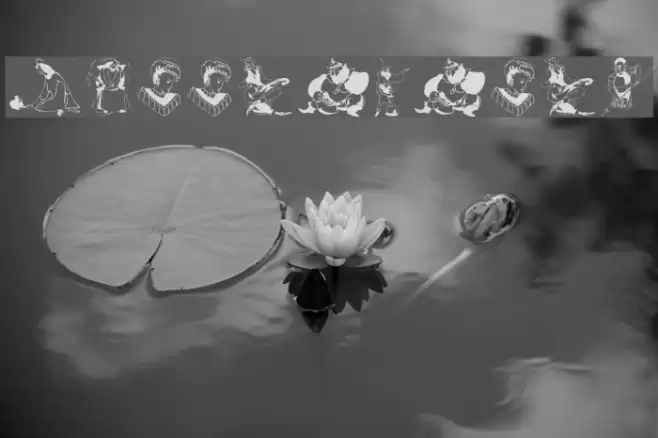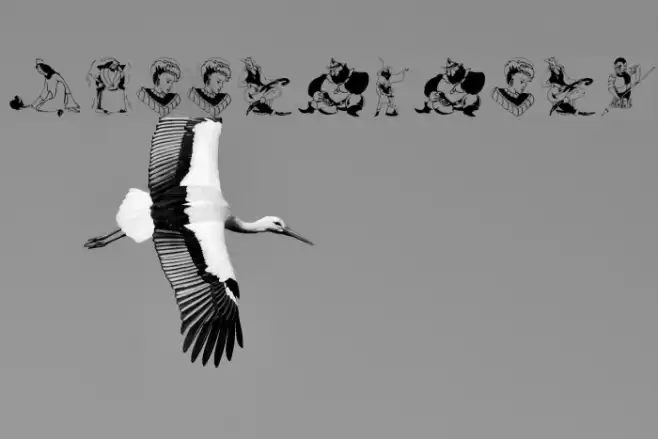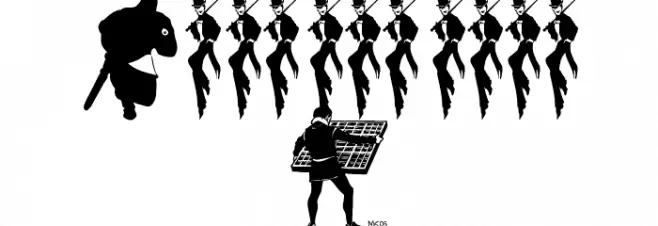
Mittelalter Font
Mittelalter Description
A highly decorative and illustrative font where each character is represented by a unique, detailed medieval or theatrical silhouette scene, rather than traditional letterforms. The glyphs are complex, playful, and narrative, making each character a miniature artwork.
Ornate, pictorial font with medieval and theatrical character illustrations from Uncategorized fonts.
- Proposed Projects: Storybooks, themed posters, event invitations, fantasy games, decorative headings.
- Overall Style: Decorative, Thematic, Illustrative
- Use Case: Logos, Headlines, Themed graphics, Posters